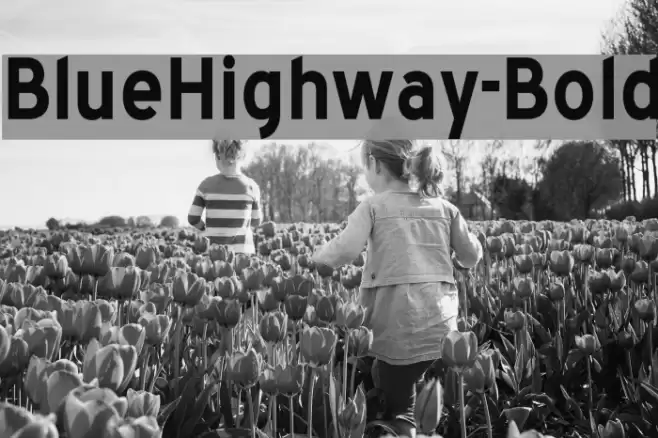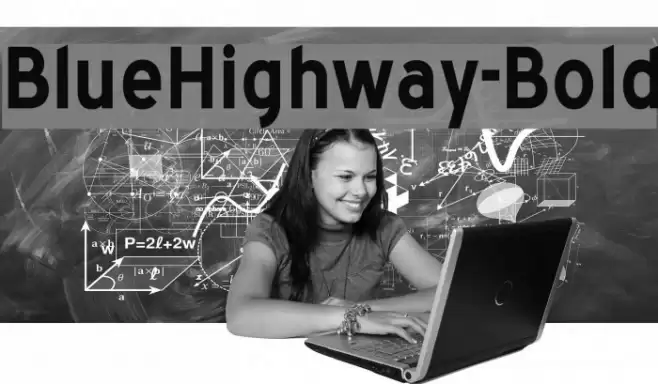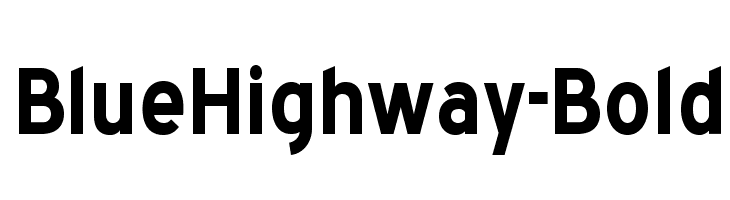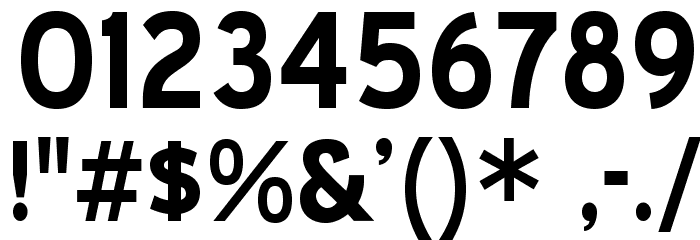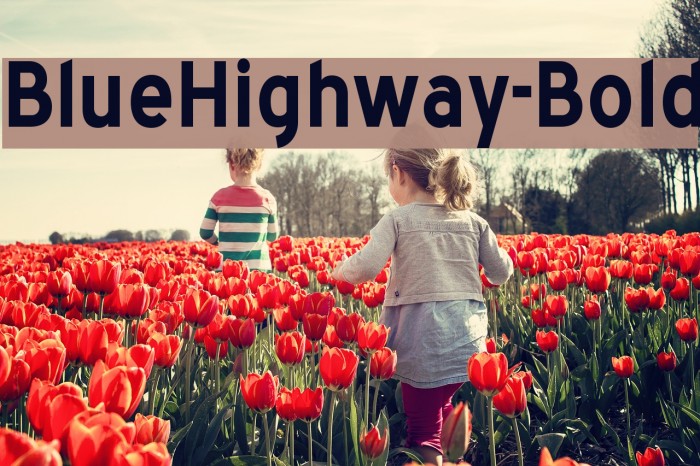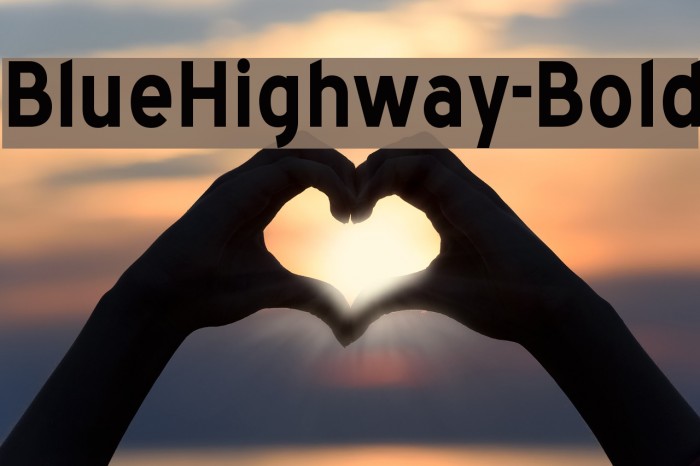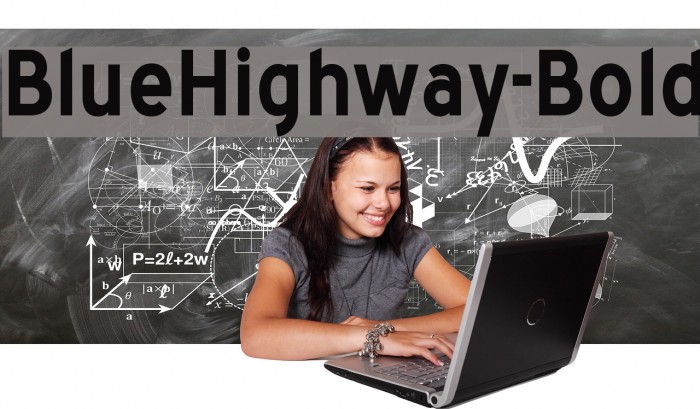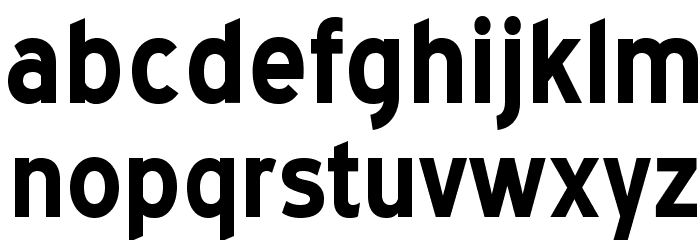
BlueHighway-Bold Font
BlueHighway-Bold Description
This font features a bold and modern sans-serif design, characterized by clean lines and a strong presence. The uppercase letters are uniform and balanced, providing a sense of stability and clarity. The lowercase letters maintain a consistent height, contributing to a cohesive look. Numerals are clear and easily distinguishable, making them suitable for various applications. Special characters are well-defined, enhancing the font's versatility. Overall, this font exudes a contemporary and professional feel, ideal for making impactful statements.
A bold, modern sans-serif font with clean lines and strong presence from Uncategorized fonts.
- Proposed Projects: Ideal for branding, signage, headlines, and digital media where a bold statement is needed.
- Use Case: Headlines, Logos, Signage